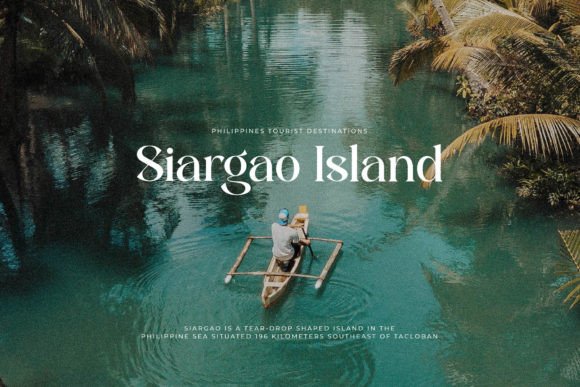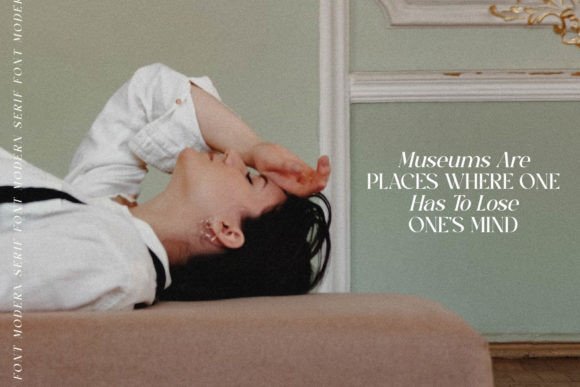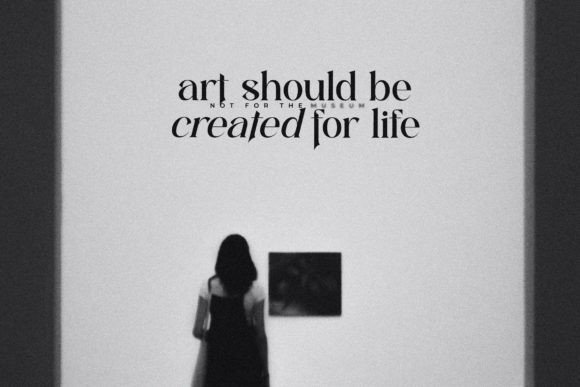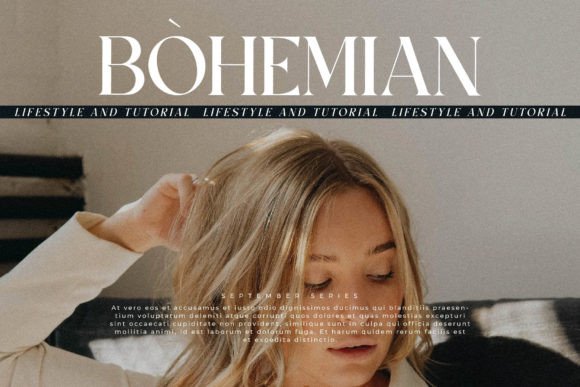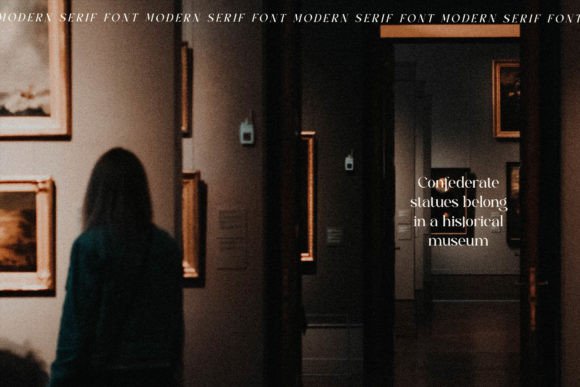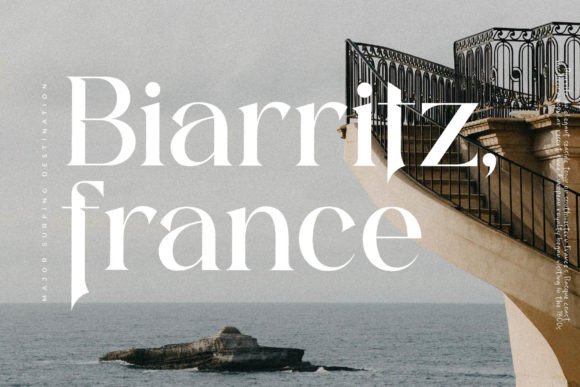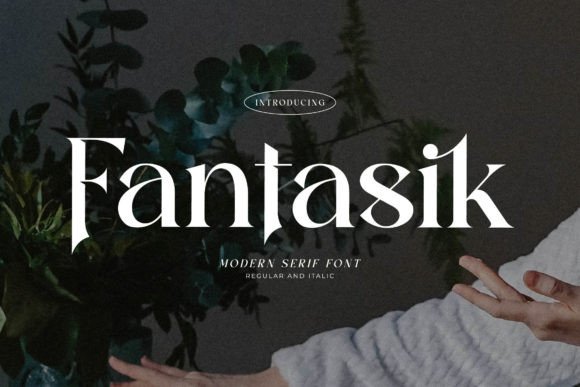
Fantasik Font: Elevate Your Designs with Elegance and Sophistication
In the world of typography, fonts play a crucial role in conveying the tone and personality of a design. For designers and crafters seeking to create luxurious, elegant, and feminine projects, the Fantasik Font is an exceptional choice. This sophisticated, charming serif font is specifically designed to add a fashionable touch to modern, chic designs.
The Essence of Fantasik Font
Fantasik is a meticulously crafted serif font that exudes elegance and refinement. Its intricate details and beautiful lines make it perfect for projects that demand a high level of sophistication. Whether you’re designing a luxury brand logo, a high-end fashion magazine, or an elegant wedding invitation, Fantasik Font is the ideal choice.
Key Features of Fantasik Font
- Sophisticated and Charming: Fantasik Font boasts a unique blend of classic and modern elements, making it both sophisticated and charming.
- Serif Elegance: The font’s serif design adds a touch of elegance and refinement, perfect for luxury and high-end projects.
- Fashionable Touch: Fantasik’s fashionable design makes it ideal for fashion brands, beauty products, and lifestyle projects.
- Versatile: This font is suitable for a wide range of design applications, including logos, headings, titles, and more.
Design Applications for Fantasik Font
Fantasik Font is an incredibly versatile font that can be used in various design applications, including:
- Luxury Brands: Create a sophisticated brand identity with Fantasik Font, perfect for high-end fashion, beauty, and lifestyle brands.
- Fashion Magazines: Add a touch of elegance to your fashion magazine with Fantasik Font, ideal for headings, titles, and captions.
- Wedding Invitations: Make your wedding invitation designs truly special with Fantasik Font, adding a touch of romance and sophistication.
- Product Packaging: Elevate your product packaging design with Fantasik Font, perfect for luxury food, beauty, and lifestyle products.
Why Choose Fantasik Font?
With so many fonts available, why choose Fantasik Font? Here are a few compelling reasons:
- Unique Design: Fantasik Font boasts a unique design that sets it apart from other serif fonts.
- Elegant and Refined: This font exudes elegance and refinement, making it perfect for luxury and high-end projects.
- Fashionable: Fantasik Font’s fashionable design makes it ideal for fashion brands and lifestyle projects.
- Easy to Read: Despite its intricate details, Fantasik Font remains easy to read, making it perfect for body text and captions.
Tips for Using Fantasik Font
To get the most out of Fantasik Font, here are a few tips:
- Pair with Sans-Serif Fonts: Pair Fantasik Font with sans-serif fonts for a beautiful contrast and added visual interest.
- Use for Headings and Titles: Fantasik Font is perfect for headings and titles, adding a touch of elegance and sophistication to your design.
- Experiment with Colors: Fantasik Font looks stunning in a range of colors, from metallic gold and silver to rich jewel tones.
In conclusion, Fantasik Font is a sophisticated, charming serif font that’s perfect for luxury, elegant, and feminine projects. Its unique design, elegant lines, and fashionable touch make it an exceptional choice for designers and crafters seeking to create modern, chic designs. With its versatility, ease of use, and beautiful design, Fantasik Font is sure to elevate your designs to new heights.